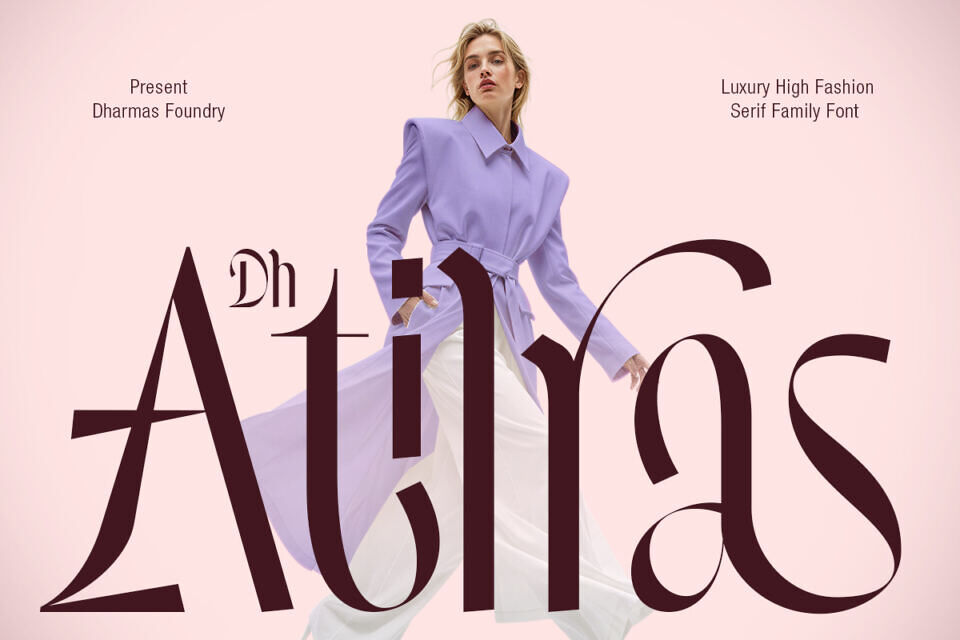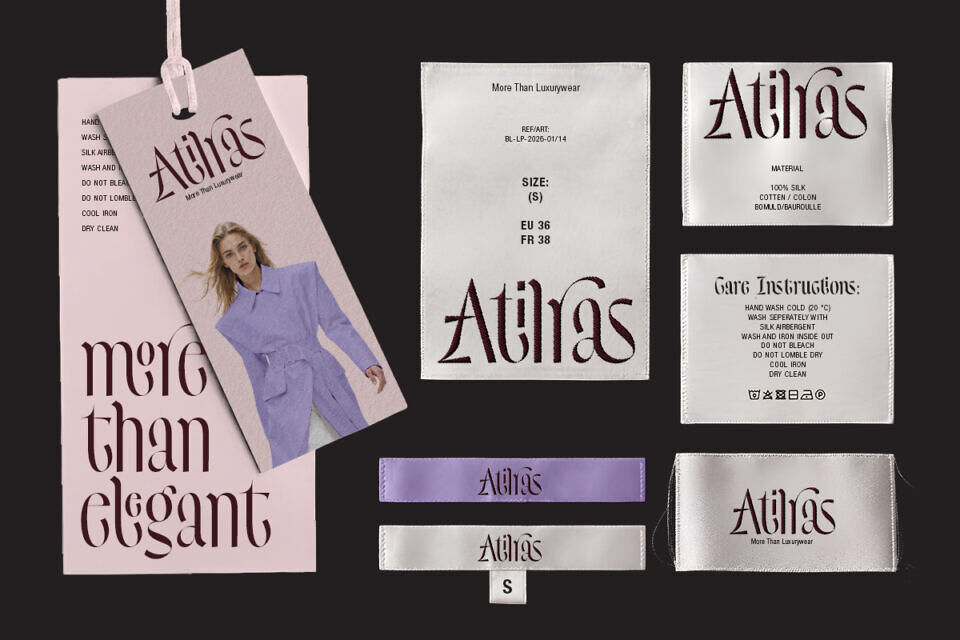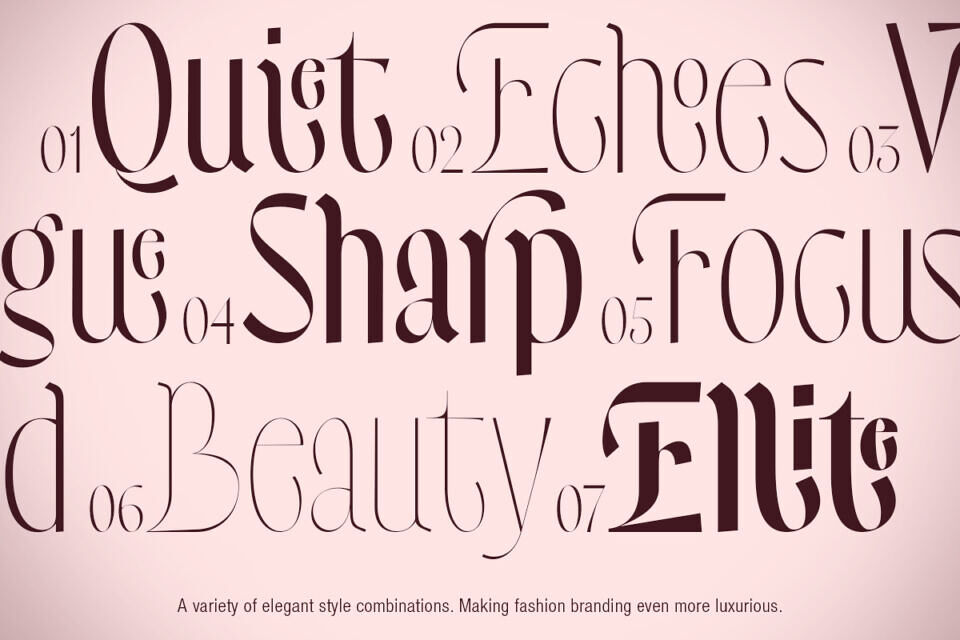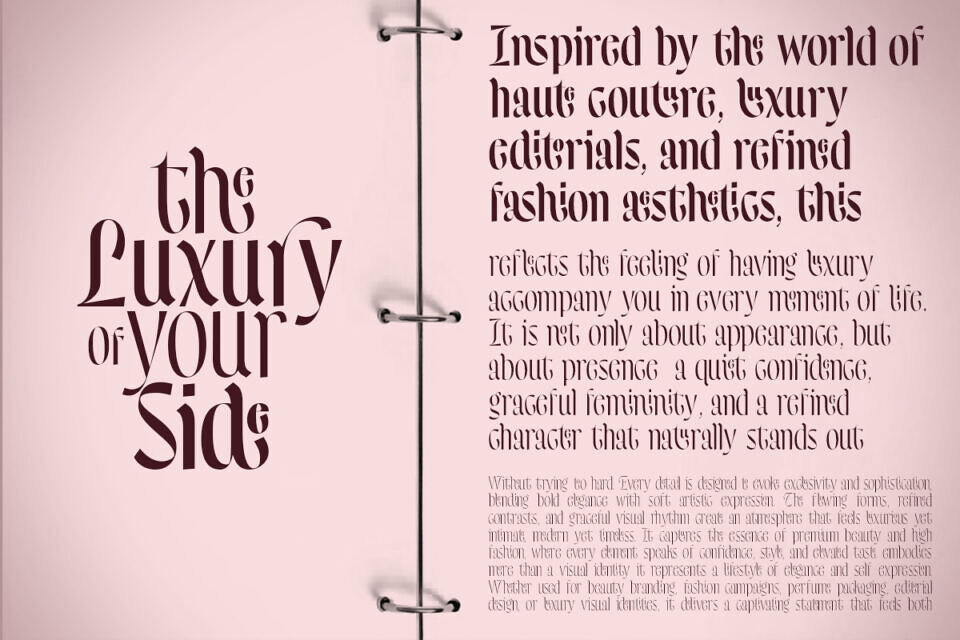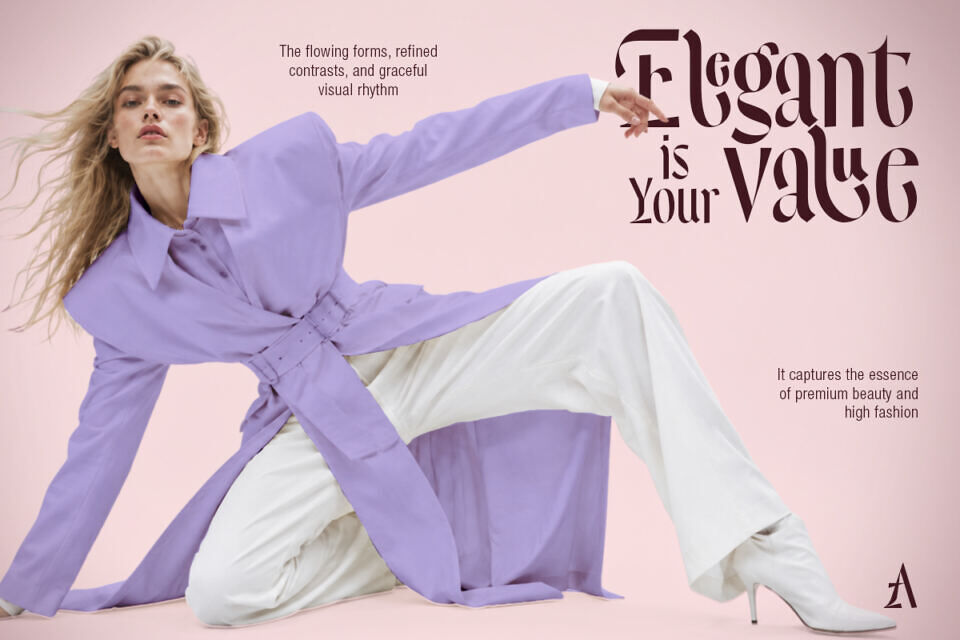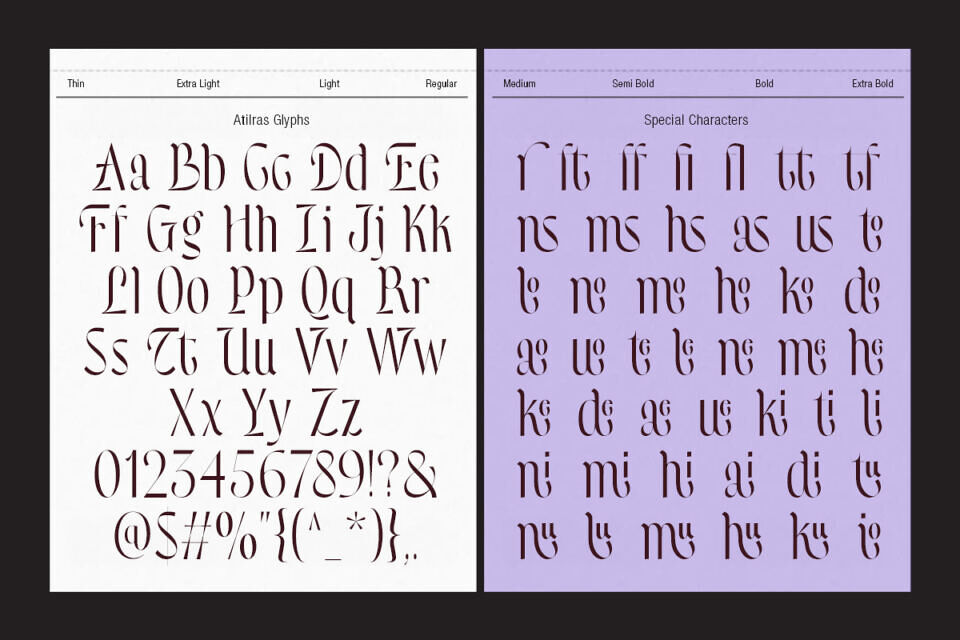
Dh Atilras Font
Dh Atilras is a sophisticated fashion serif family designed to bring elegance, luxury, and editorial beauty into every design. Featuring 8 versatile styles: Thin, Extra Light, Light, Regular, Medium, Semi Bold, Bold, and Extra Bold, this typeface offers complete flexibility for creating refined visual identities.
Its high-contrast letterforms, graceful curves, and distinctive details make it perfect for fashion branding, luxury logos, magazine layouts, beauty campaigns, cosmetics packaging, lookbooks, social media content, and premium marketing materials. To enhance creative possibilities, Dh Atilras includes 42+ fashion alternates and ligatures, allowing designers to craft unique and expressive typography with ease.